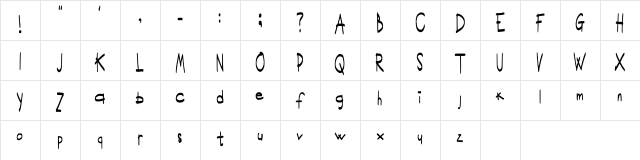
Scrittura Ravvicinata Regular
Design Context for Scrittura Ravvicinata Typeface
Scrittura Ravvicinata is a composed and adaptable typeface that performs quietly and consistently across a wide range of design contexts.
Pro Tip: Use Scrittura Ravvicinata in both headline and body roles to test its range before committing to a single application.